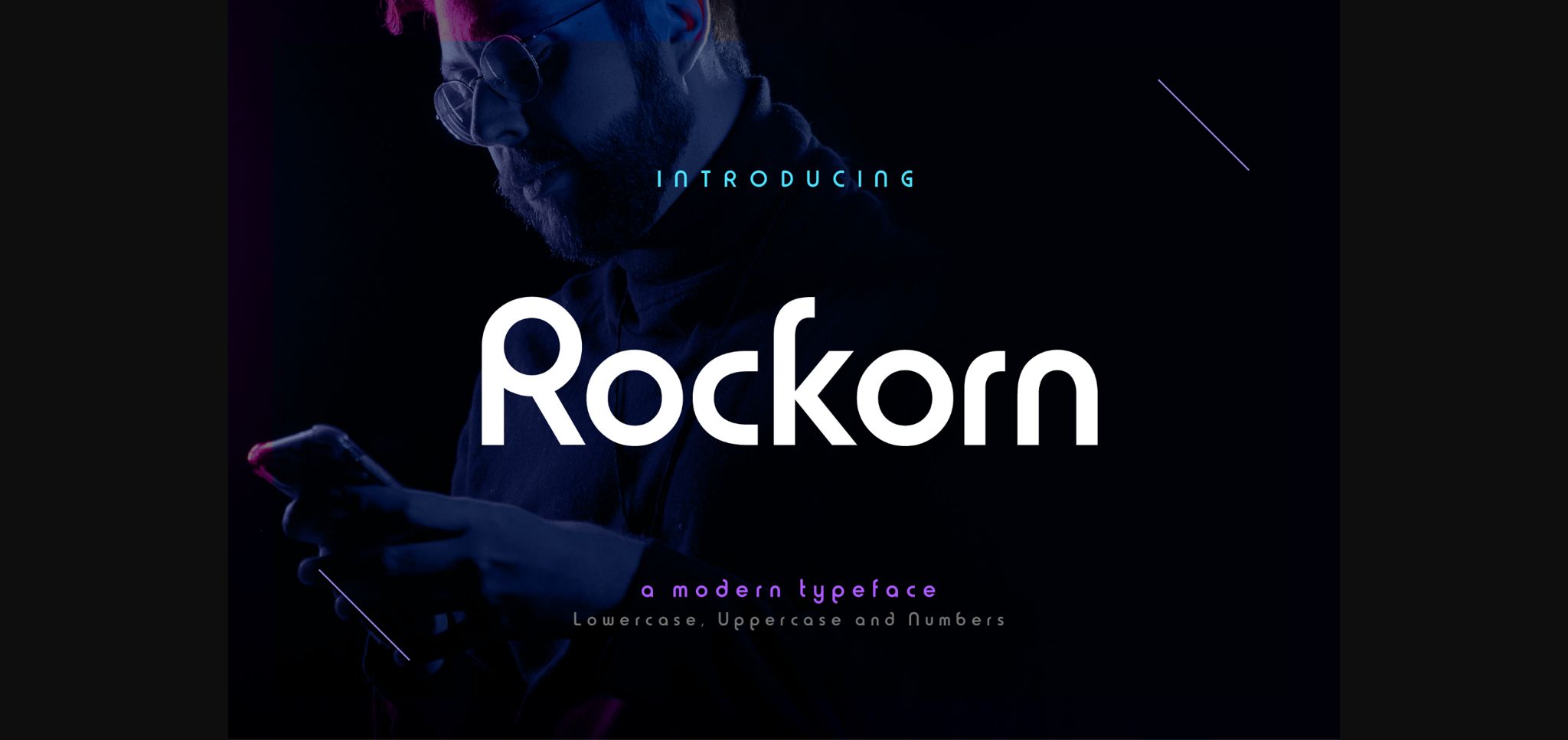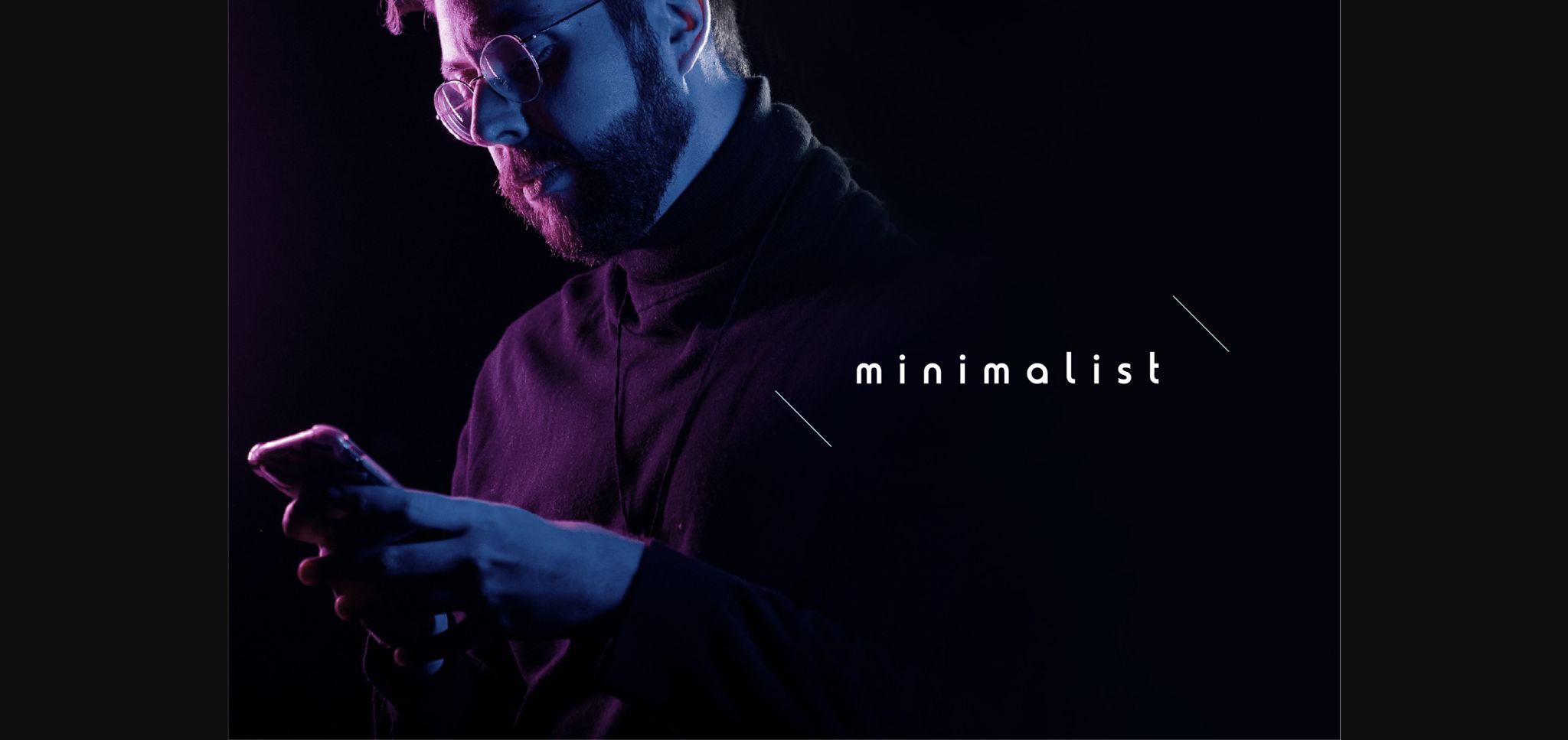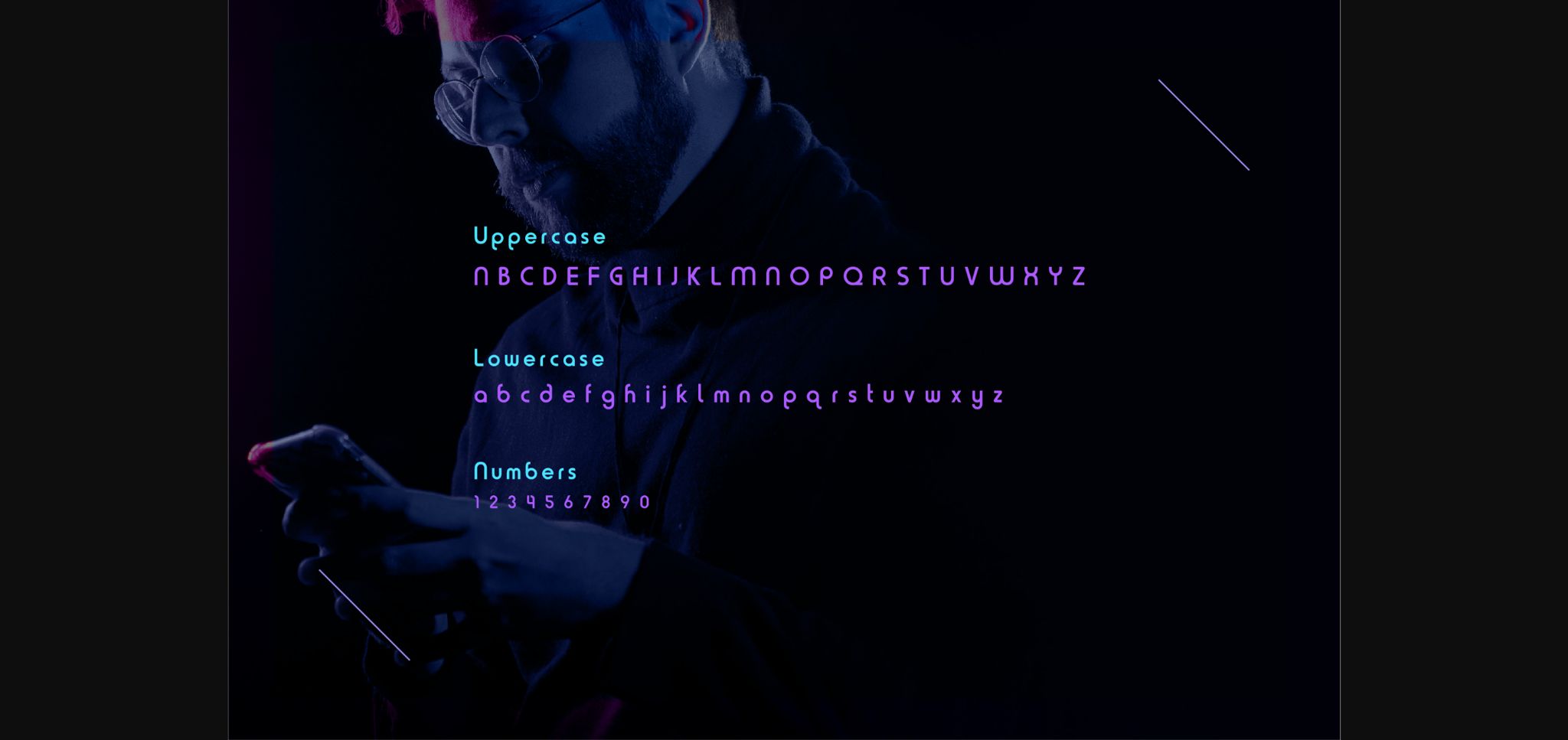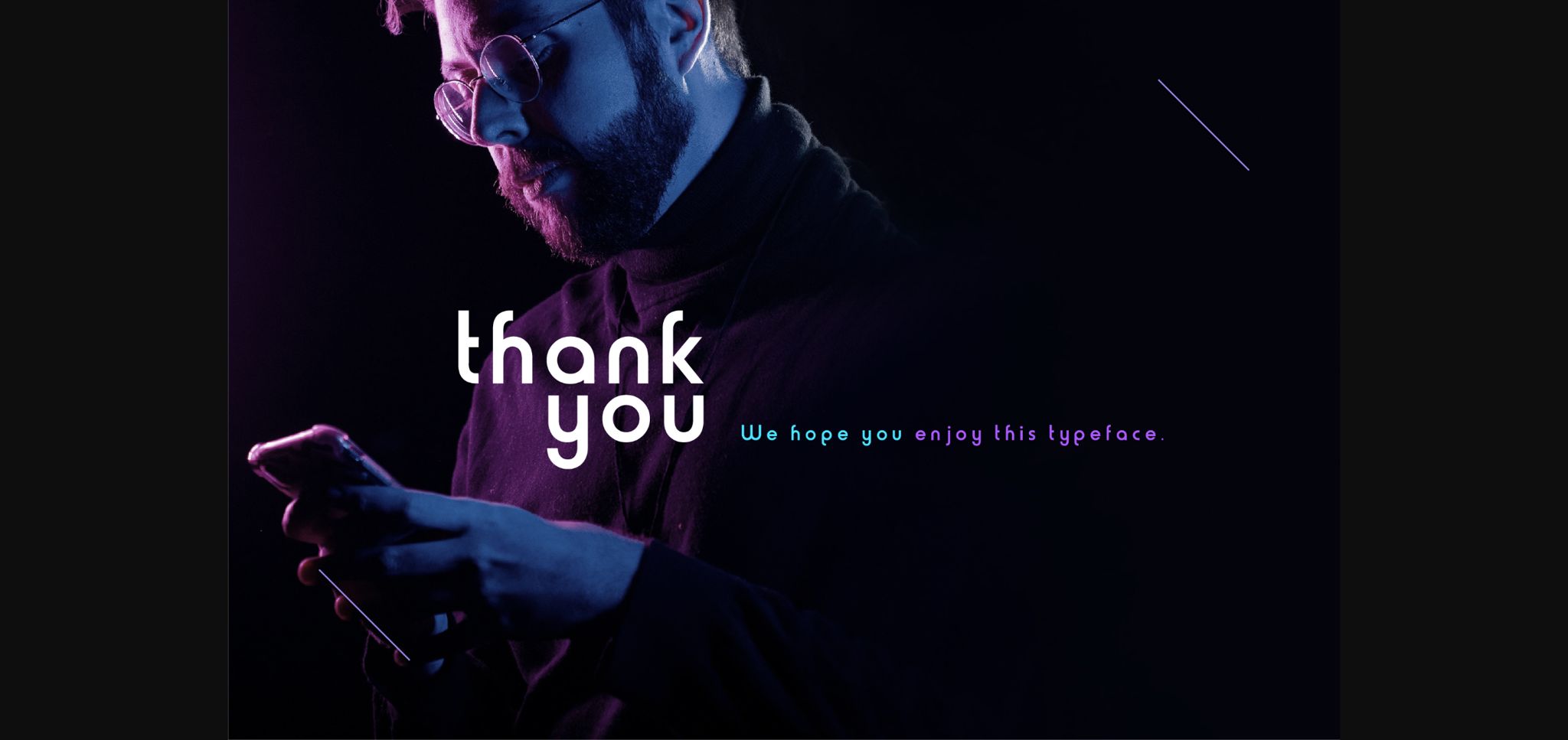
About Rockorn Font
Rockorn emerges as a sleek and tidy sans serif font, characterized by its minimalistic design. With its versatility, Rockorn seamlessly integrates into a diverse range of projects, enhancing their visual appeal and making them stand out with effortless sophistication.
What sets Rockorn apart is its ability to effortlessly adapt to various design contexts. Whether you’re crafting logos, designing websites, or creating marketing materials, Rockorn’s clean lines and balanced proportions ensure clarity and readability, making it suitable for a wide variety of applications.
The beauty of Rockorn lies in its simplicity and versatility. Its minimalistic style adds a touch of modernity to any project it graces, ensuring consistency and coherence across all platforms. Whether used for headlines, body text, or as a focal point in your composition, Rockorn delivers a visual impact that is both striking and memorable.
Prepare to be impressed by Rockorn as it elevates your creative endeavors to new heights of excellence. From sleek and minimalist layouts to bold and eye-catching graphics, Rockorn enhances your designs with its understated elegance.
Embrace the versatility of Rockorn and unlock its full potential to create standout designs that leave a lasting impression. With Rockorn by your side, your creativity knows no bounds, and your projects are destined to stand out in a crowded digital landscape.
Rockorn’s minimalist design and versatility make it an ideal choice for any project. Whether it’s logos, websites, or marketing materials, Rockorn adds sophistication. Its clean lines ensure readability and clarity across platforms.
With Rockorn, your designs will stand out with effortless elegance, making a lasting impact on your audience. Embrace its simplicity and notice how it enhances your creative ideas, elevating them to new levels of excellence. Rockorn’s ability to seamlessly integrate into a wide range of projects ensures consistency and coherence, making it a valuable asset in your design toolkit.